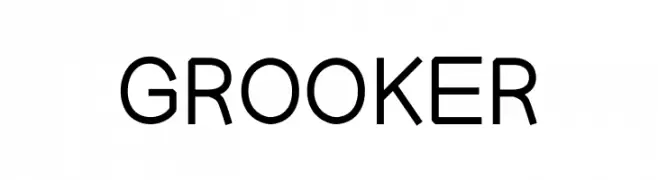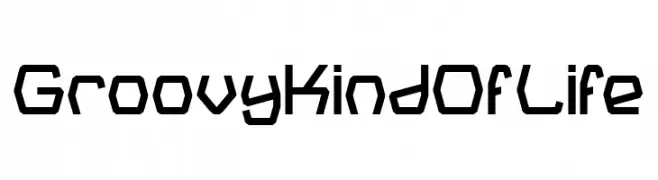
A playful, rounded font with bold, uniform strokes and a friendly appearance.
A bold, dynamic script font with a hand-drawn, energetic style.
A bold, modern sans-serif font with a geometric and condensed style.
A bold, tall, and narrow font with a modern, geometric style.
A bold, geometric font with a 3D effect and industrial style.
A bold, rounded font with a playful and bubbly style.
A geometric, hollow font with angular lines and a modern, futuristic style.
A geometric, angular font with a futuristic and bold design.
A flowing, cursive font with a handwritten, elegant style.
A modern, clean sans-serif font with uniform stroke width and excellent readability.